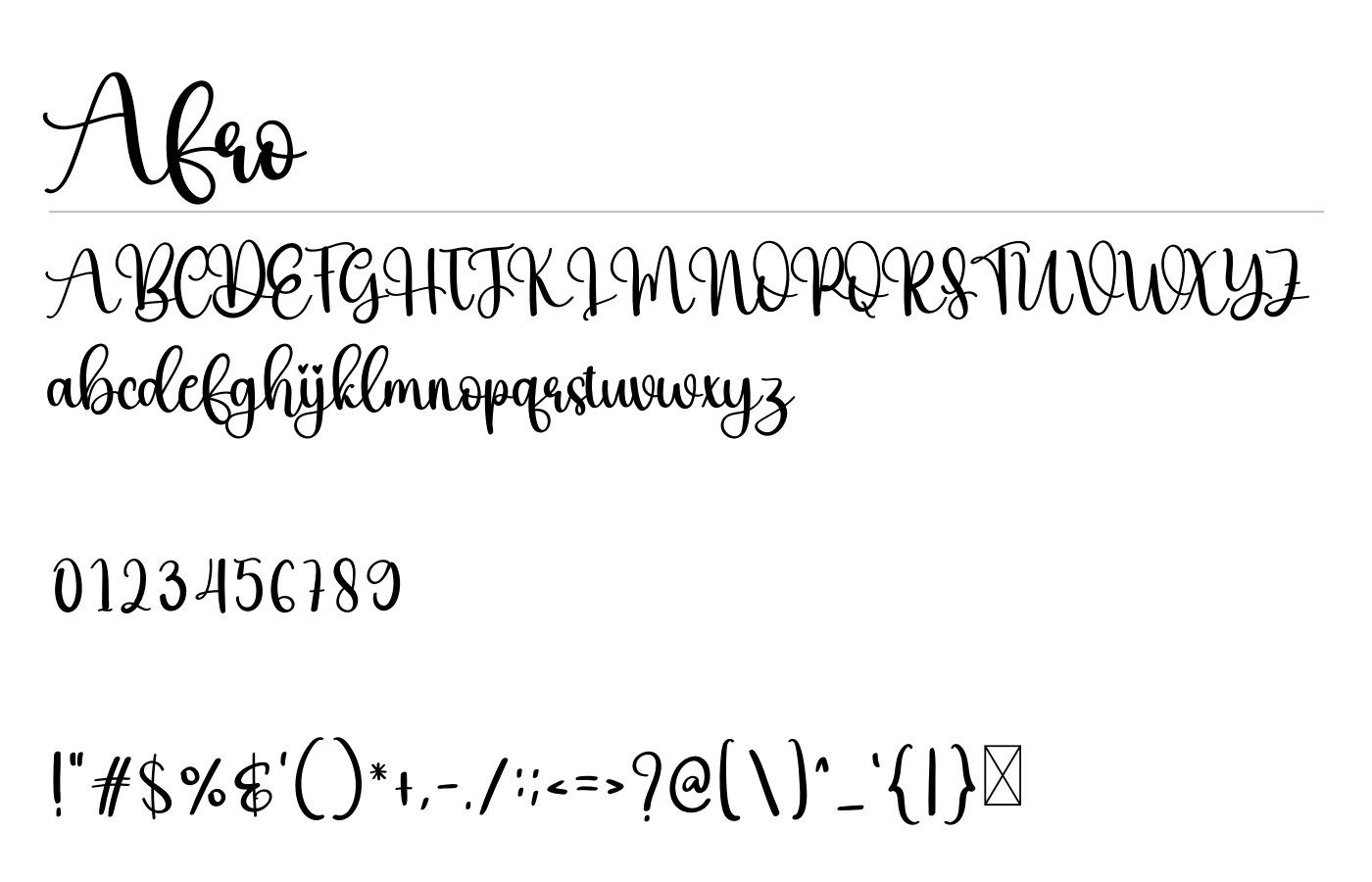
Afro Font is a lively and playful script typeface that features graceful, flowing letterforms with a handwritten feel. Its smooth, medium-weight strokes and charmingly curly details create an inviting and friendly personality, making it perfect for creative projects like greeting cards, logos, and fashion branding that seek a warm and artistic touch. This font works best in headlines and decorative text where its unique style can shine and add a personal, elegant flair.
Afro Font
About Afro Font